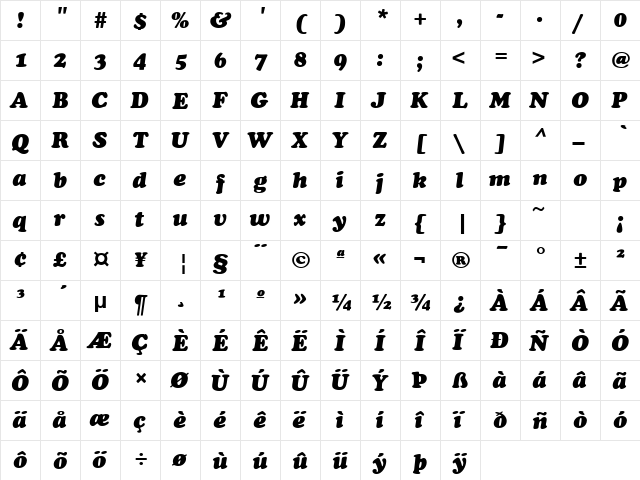
PP-Cooper Heavy-Italic
Design Context for PP-Cooper Typeface
PP-Cooper takes a measured approach to typography — its balanced proportions and neutral character make it a reliable workhorse for both digital and print work. The slanted form adds forward momentum and visual energy.
Pro Tip: Try PP-Cooper for annotation and caption copy alongside an upright companion — the contrast in angle creates a dynamic but ordered typographic system.